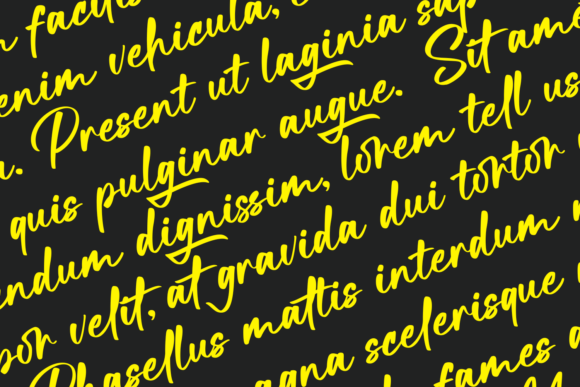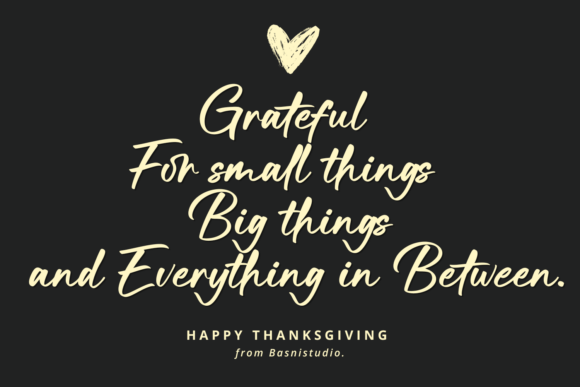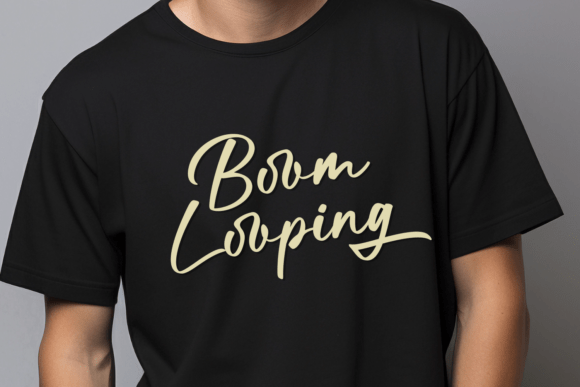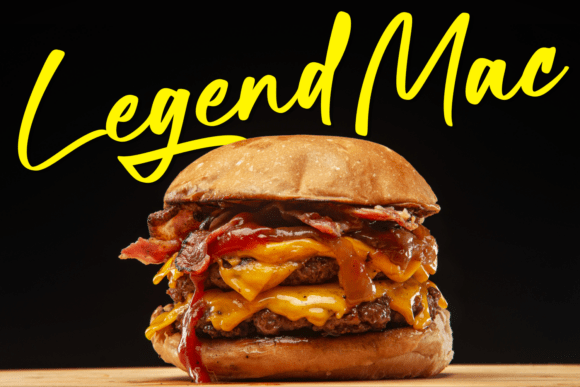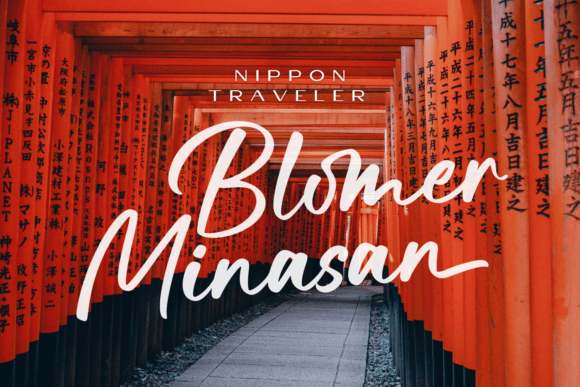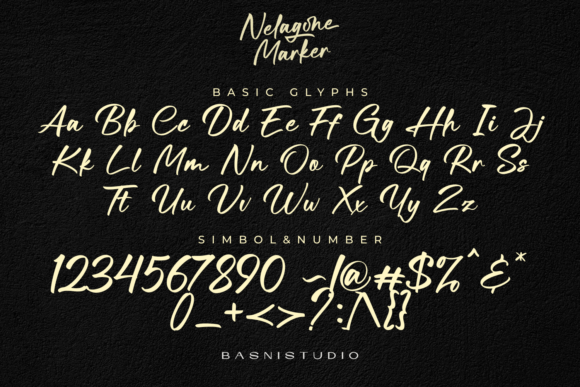
Introduction to Nelagone Marker Font
Do you remember the rush of creating your first streetwear design? The thrill of combining bold graphics, vibrant colors, and edgy typography to make a statement? For designers like you, the Nelagone Marker Font is a game-changer. This high-energy brush font screams creativity and street-style grit, making it the perfect tool for your next creative project.
As a design resource, Nelagone Marker Font offers a unique blend of style and versatility. With its thick, aggressive strokes and natural ink-to-paper texture, it’s like having a fresh marker at your fingertips. Whether you’re working on a social media ad, gym branding, or a striking header for a creative workshop, this font is optimized for high-impact visibility.
Key Features of Nelagone Marker Font
- High-quality design resource for creative projects, offering a unique and stylish look.
- Features a transparent background, allowing for seamless integration into various design compositions.
- Unique characteristics include its bold and marker-like aesthetic, making it perfect for adding a touch of personality to designs.
- Designed to be highly versatile, the Nelagone Marker Font can be used for a variety of creative projects, from logos and branding to editorial and advertising materials.
Honest Review: Nelagone Marker Font
I recently stumbled upon the Nelagone Marker Font, a free download that’s become a game-changer for my design projects. This font is perfect for creating a modern, edgy vibe that adds depth to any creative project.
- ✨ High quality design that looks great in print and digital formats
- ✨ Versatile and easy to use in a variety of design contexts
- ✨ Transparent background makes it easy to work with layered designs
- ⚠️ Limited character set – not ideal for projects requiring extensive typing
- ⚠️ May not be suitable for body text due to its bold, marker-inspired aesthetic
Overall, I’m impressed with the Nelagone Marker Font. Its unique design and high-quality feel make it a valuable resource for designers. While it may have some limitations, it’s a great addition to any design library. I’ve already incorporated it into several of my recent projects, and I’m excited to see how it evolves as a design resource.
How to Use Nelagone Marker Font
The Nelagone Marker Font is a versatile and high-quality design resource ideal for various creative projects. With its transparent background and unique aesthetic, it’s perfect for adding a personal touch to your designs.
Getting the Most Out of Nelagone Marker Font
For optimal results, use the Nelagone Marker Font in conjunction with other high-quality design elements. Experiment with different font sizes, colors, and combinations to create a unique look.
The Nelagone Marker Font is suitable for a wide range of creative projects, including:
- Infographics and visualizations
- Typography-based art and illustrations
Yes, Nelagone Marker Font supports transparent backgrounds, making it ideal for designs where you want to overlay text or graphics on top of images or other elements. Simply use a design software that supports transparent backgrounds, such as Adobe Illustrator or Photoshop.